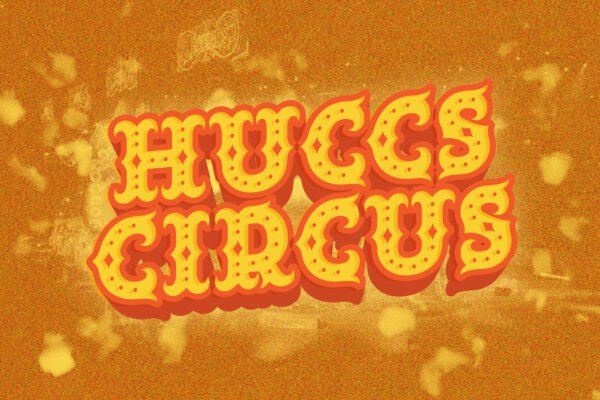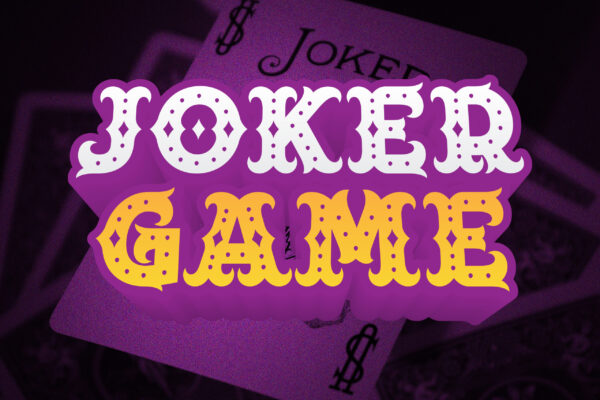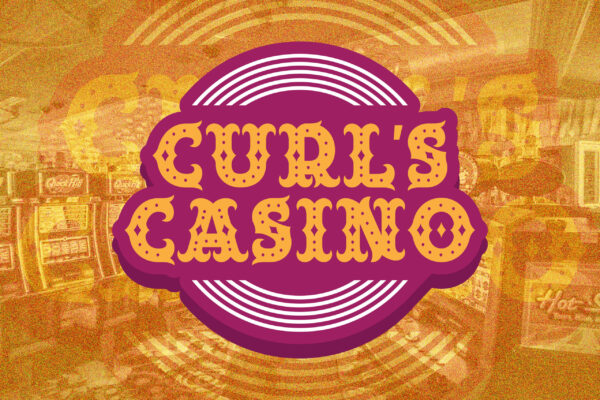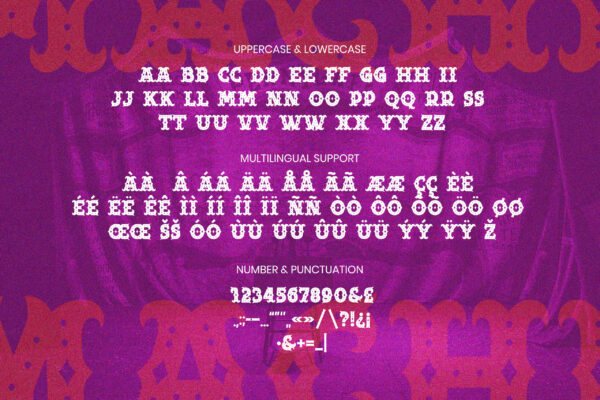
Mache is a vibrant and whimsical display font inspired by the charm of vintage circus posters and old-fashioned carnival vibes. With bold letterforms, unique diamond-shaped punctuations, and playful curves, Mache instantly commands attention and evokes a sense of excitement and nostalgia. It’s the perfect typeface for headlines, signage, branding, and projects that crave a bold personality and retro flair.
Ideal for both print and digital use, Mache includes uppercase and lowercase characters, multilingual support, and a complete set of punctuation and numerals. Whether you’re designing for casinos, magic shows, festivals, or quirky packaging, Mache adds a burst of joyful energy and theatrical fun to any layout.
MACHE